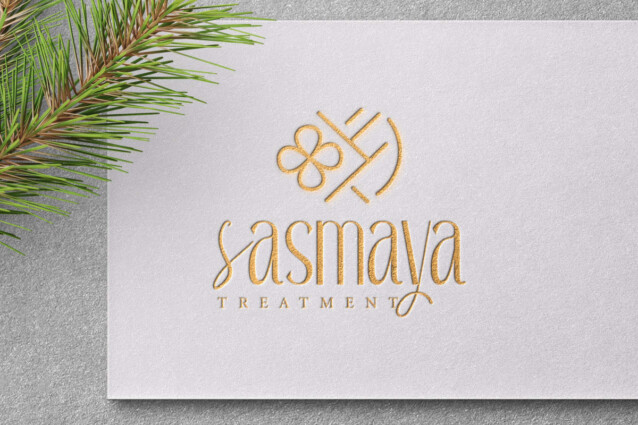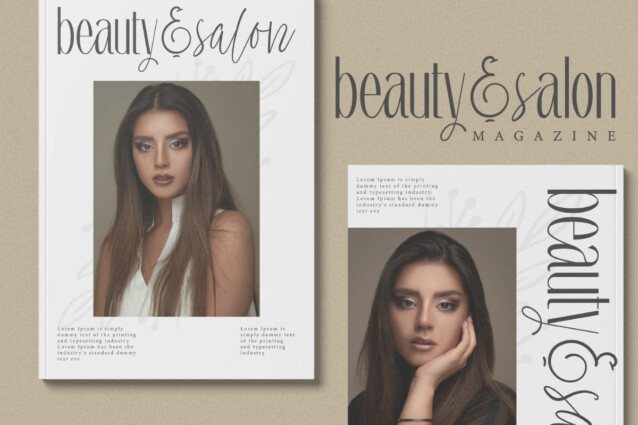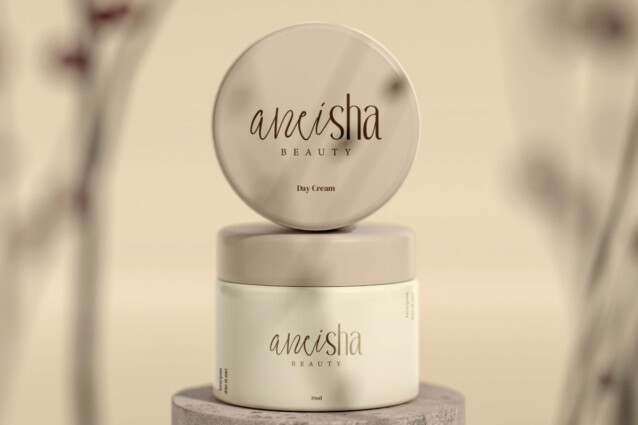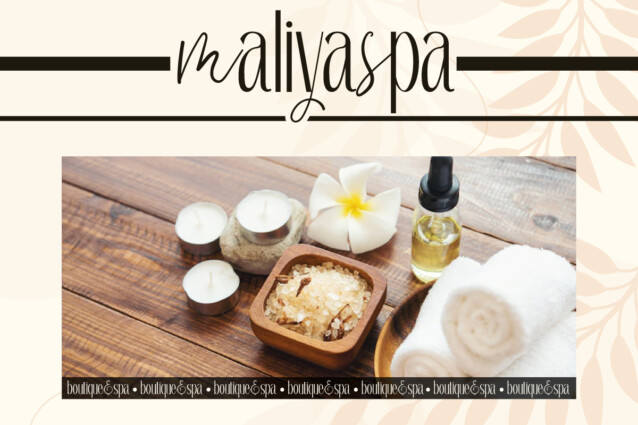
Savana Beauty Font
Savana Beauty Font is a lovely display font that packs in two styles, elegant script and modern sans. It will bring an interesting touch to your design, such as apps, billboard, brand logo, brochure, business card, catalog, cover, embossed design, flyer, header, invitation, label, magazine catalog, mockup design, packaging design, poster, quote, screen print, signage, social media posts, stationery, sticker, title, website, and any projects.